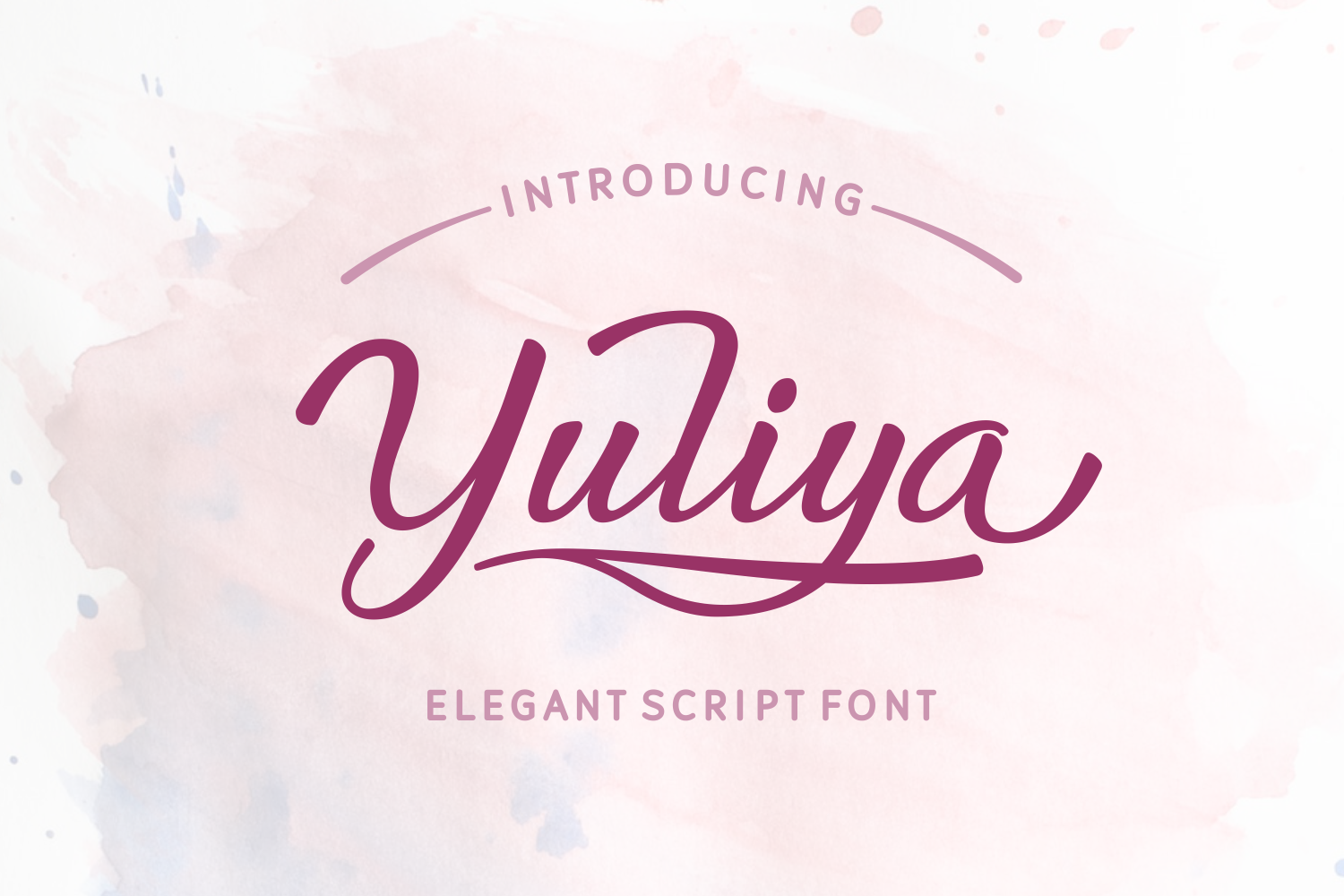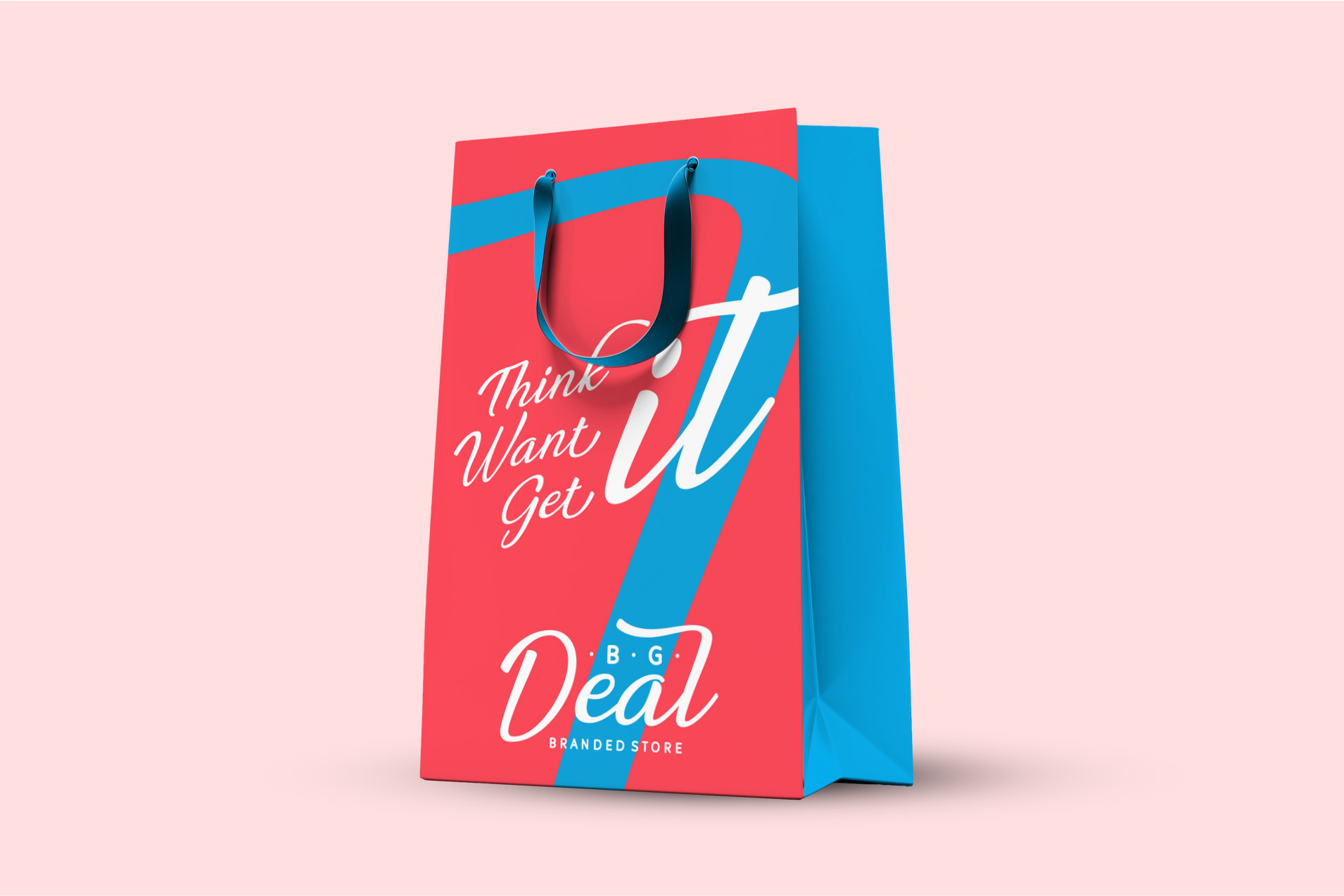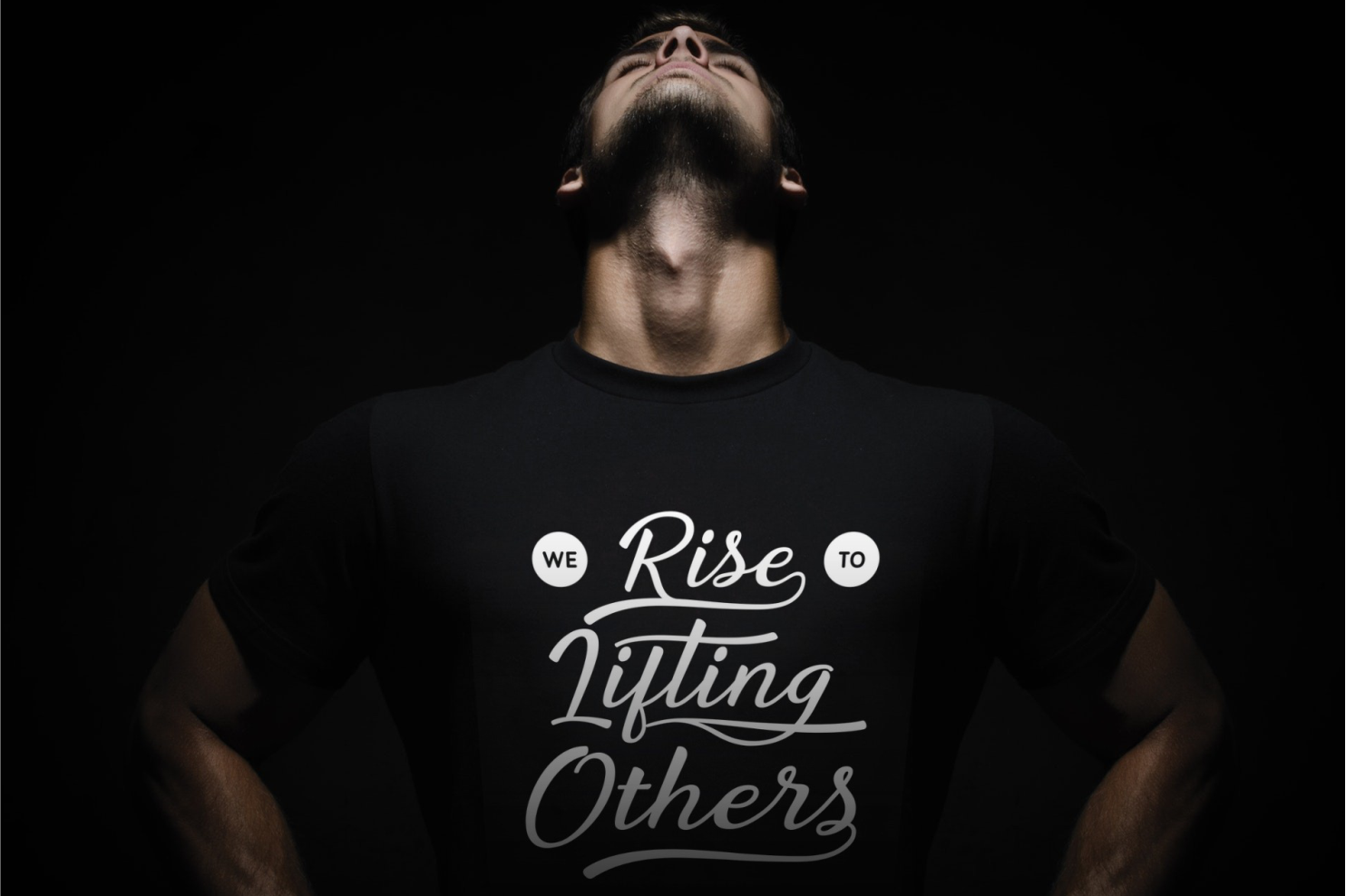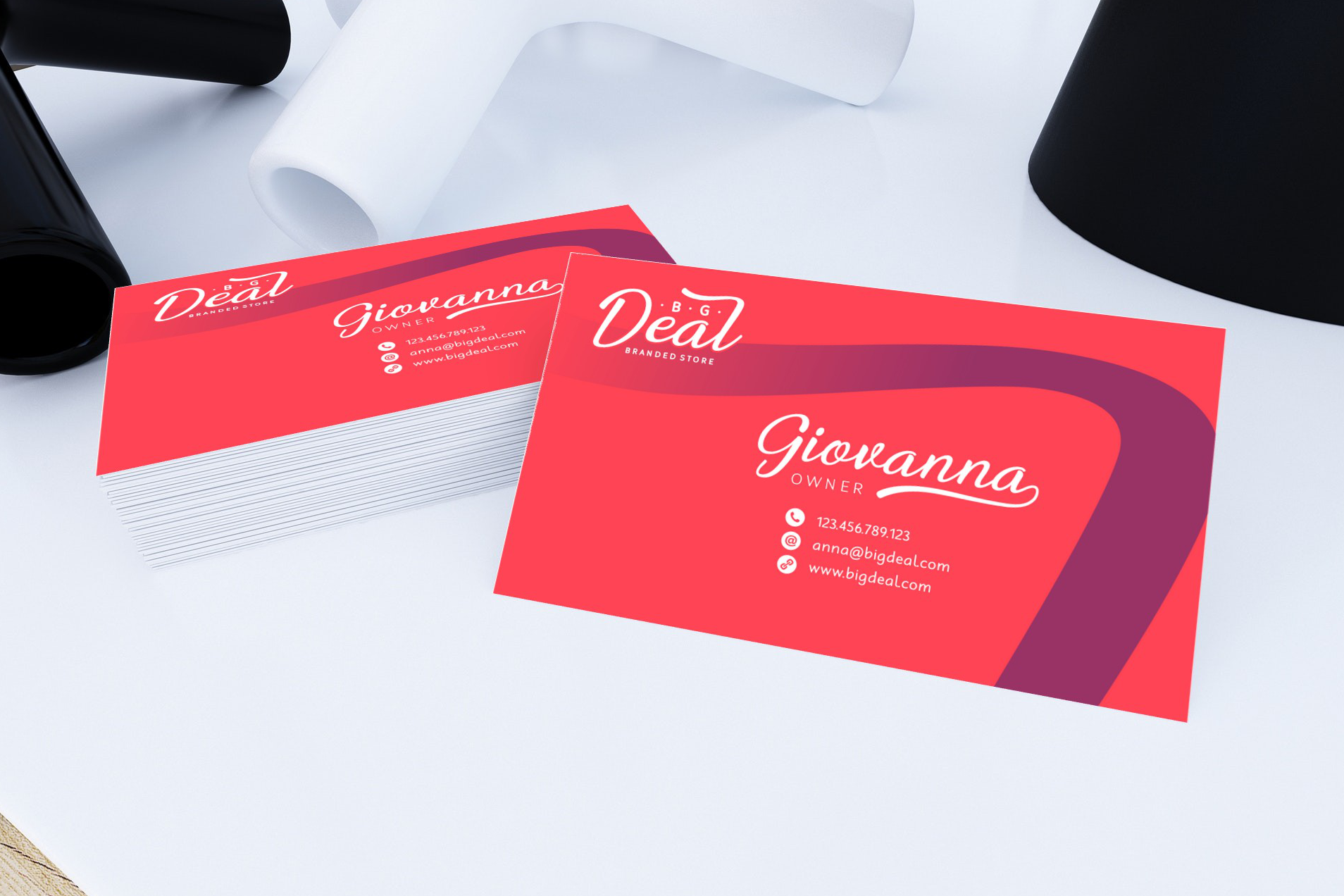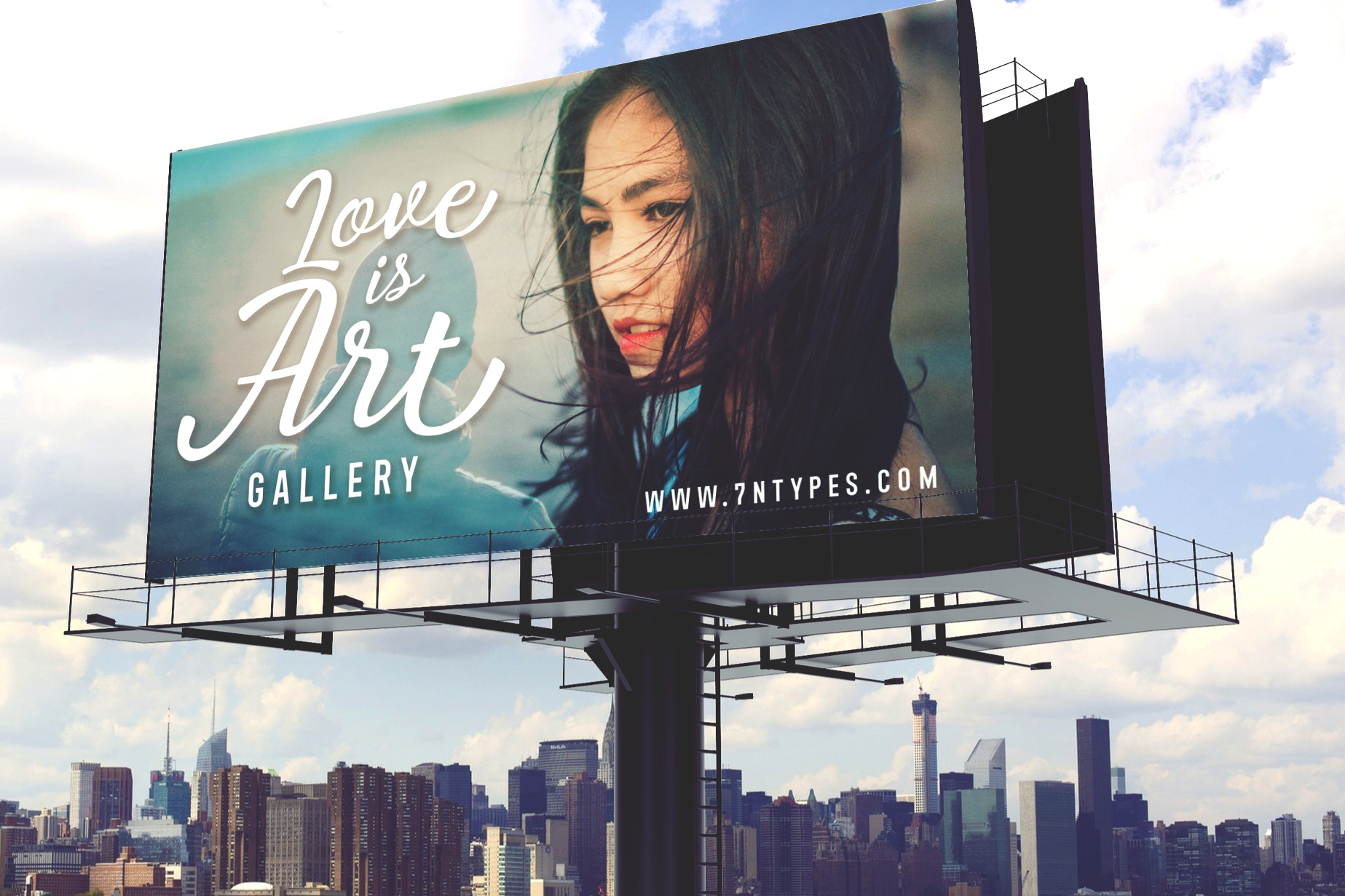
Yuliya Font
About Yuliya Font
Yuliya is a gorgeous and romantic script font, ideal for headlines and displays of all kinds. This font is perfectly suited for fashionable projects, editorials, and more!